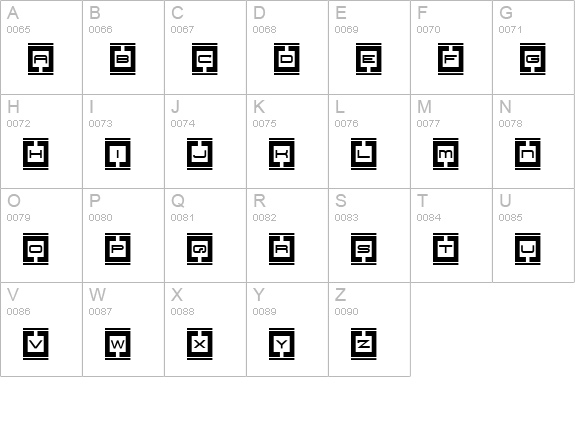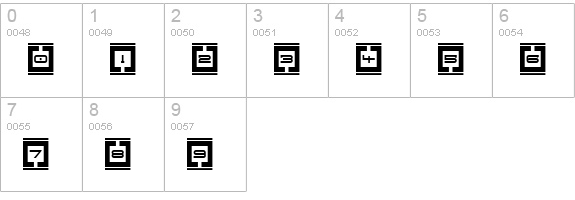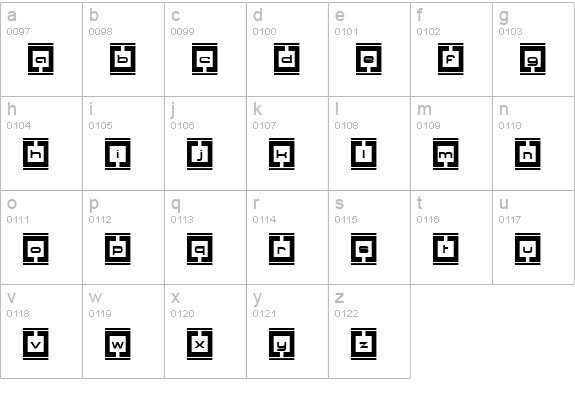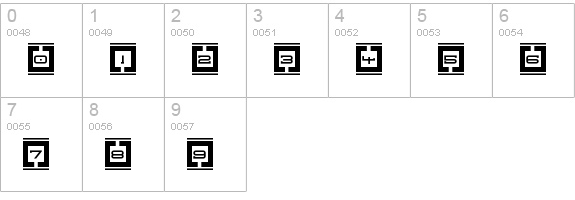
The Border Base Future font is a sleek and modern typeface that exudes a futuristic and edgy vibe. Its clean lines and sharp angles make it perfect for creating eye-catching designs with a contemporary twist. With its unique geometric shapes and bold letterforms, this font is sure to make a statement in any project. What makes Border Base Future font even more appealing is that it is available for free download at FontsMarket.com. This means that you can easily access this stylish font and use it in your designs without any cost. Whether you're working on a branding project, poster design, or website layout, the Border Base Future font is a versatile and dynamic choice that will elevate your work to the next level. Download it today and unleash your creativity with this stunning typeface.